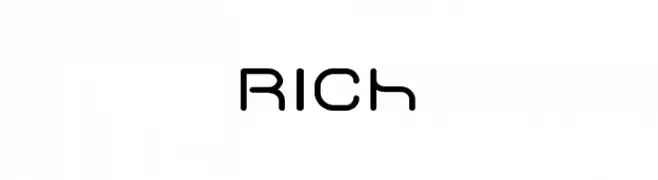
A bold, jagged font with a rugged, graffiti-like appearance.
A dynamic, handwritten font with fluid, energetic strokes and a lively appearance.
A decorative, distressed font with a vintage, artistic style.
A bold, distressed font with a vintage, industrial aesthetic.
A modern, geometric sans-serif font with clean lines and balanced proportions.
A bold, playful script font with dynamic, flowing letterforms.
A bold, graffiti-inspired font with dynamic angles and curves.
A bold, distressed font with a grunge effect and inline design.
A futuristic, segmented font with a digital and geometric style.
A bold, playful script font with a handwritten style and rounded edges.